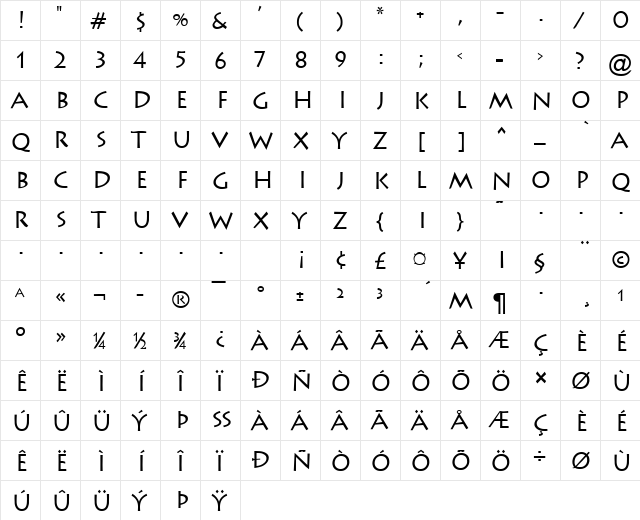
Liste Normal
Design Context for Liste Typeface
Liste offers clean, dependable letterforms without strong stylistic allegiance, making it a practical choice for designers who need flexibility.
Pro Tip: Pair Liste with a font of contrasting weight or personality to build a more expressive typographic hierarchy.